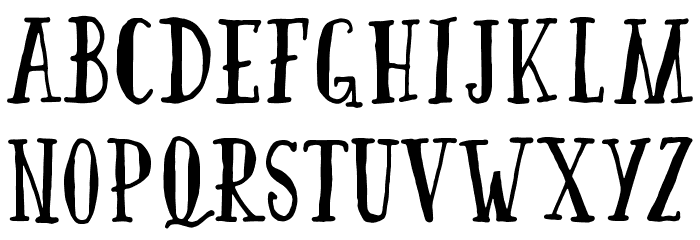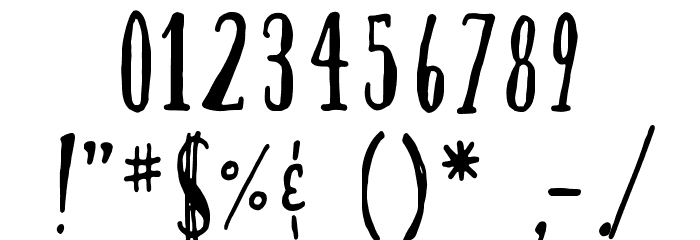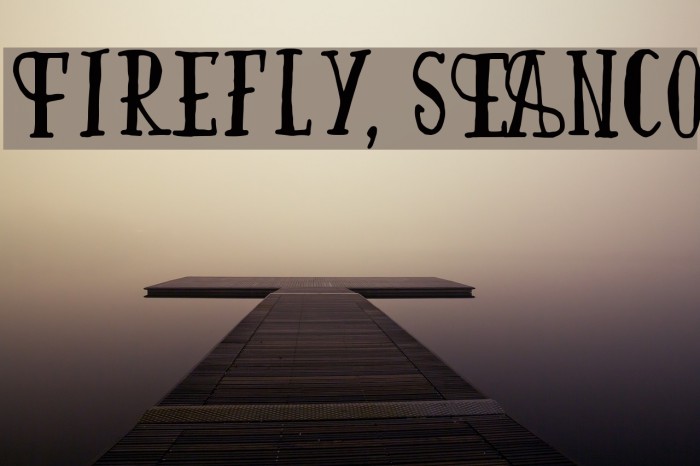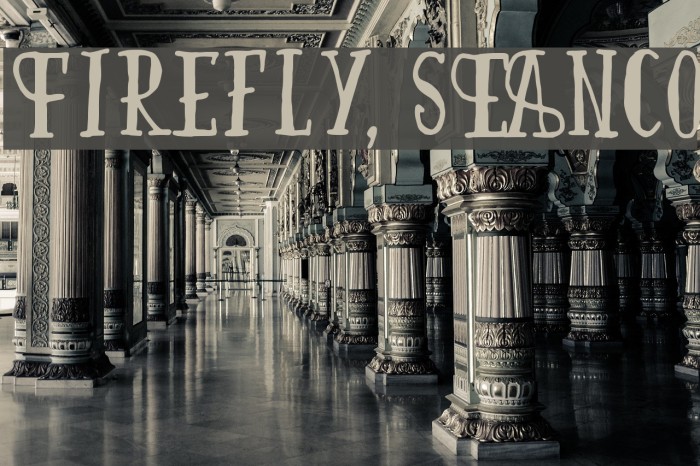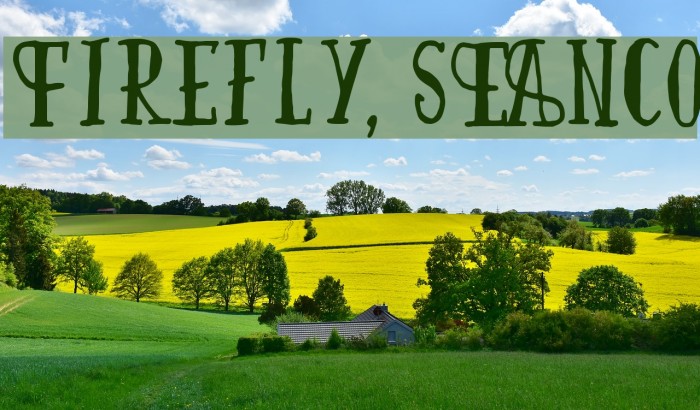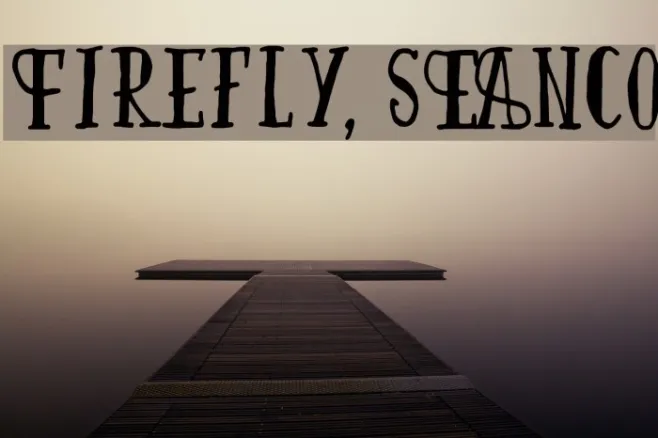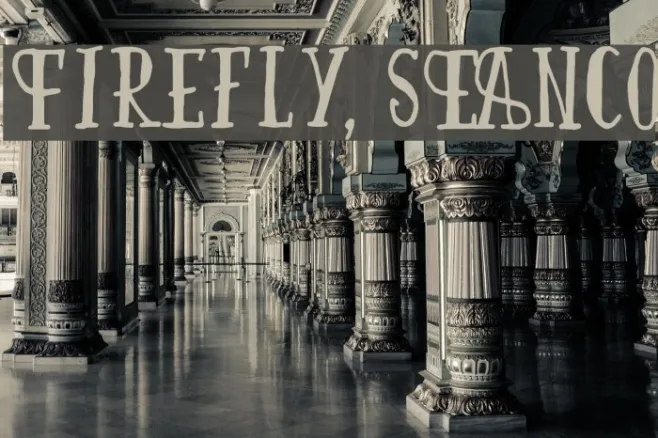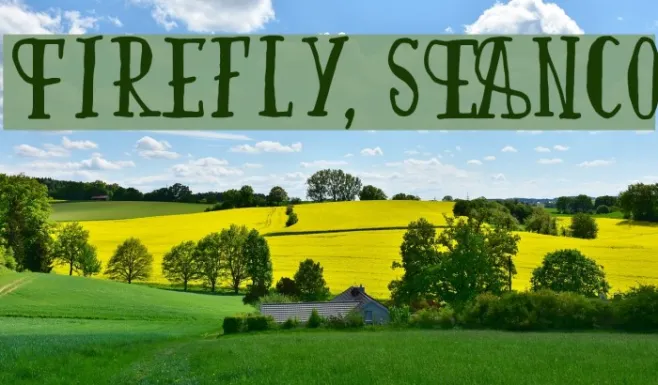
Firefly, SEANCo Font
This font features a playful and dynamic style with a hand-drawn appearance. The uppercase letters exhibit a whimsical flair, with varying stroke widths and slight irregularities that add to its charm. The lowercase letters maintain this lively character, offering a consistent yet unique look. Numbers and special characters follow the same aesthetic, ensuring a cohesive design throughout. The font's overall appearance is reminiscent of vintage signage or hand-painted lettering, making it ideal for projects that require a touch of nostalgia and creativity.
A playful, hand-drawn font with a vintage, whimsical style.
- Proposed Projects: Perfect for creative projects like posters, invitations, branding, and packaging that require a vintage or handcrafted feel.
- Overall Style: Vintage